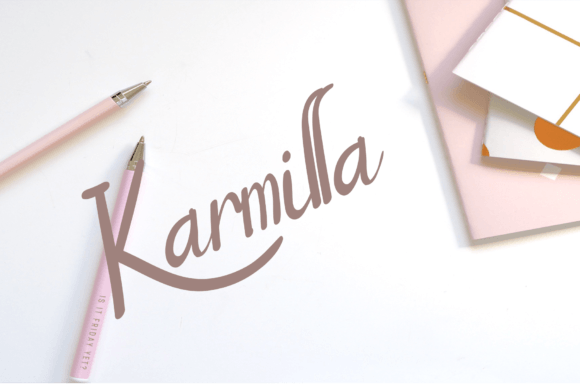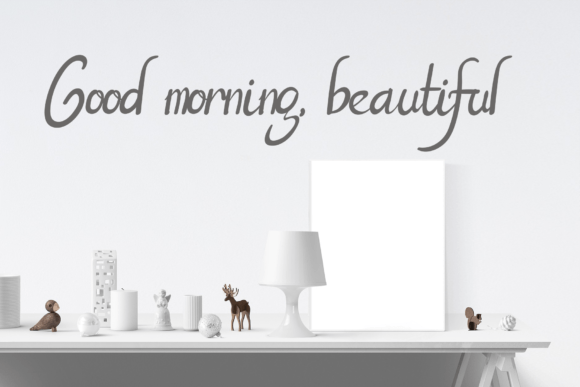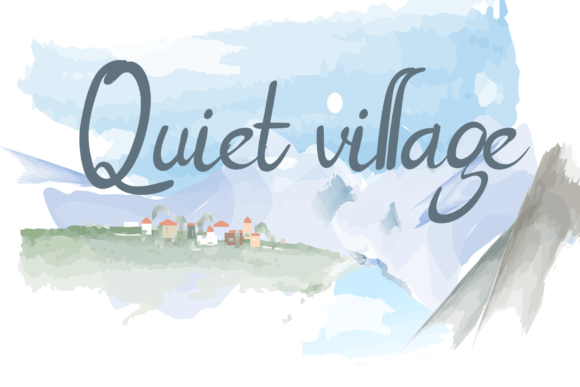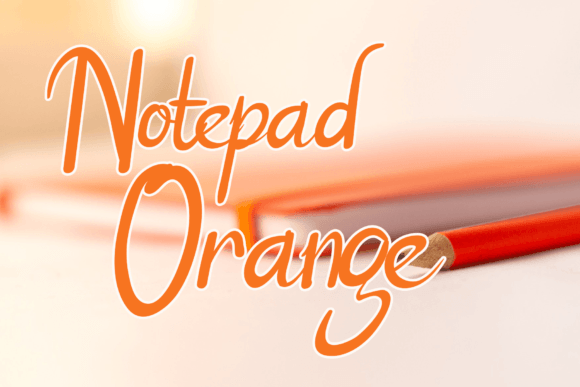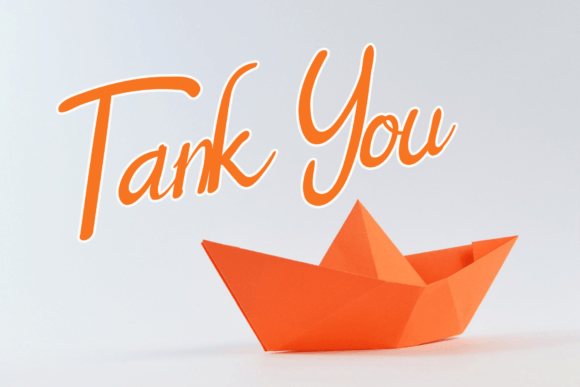
Rustic and Beautiful Font
Rustic and Beautiful is a fancy handwritten font that will give you extra creative work. This font is suitable for logo design, social media, movie titles, and book titles. Make stunning work with Rustic and Beautiful font.